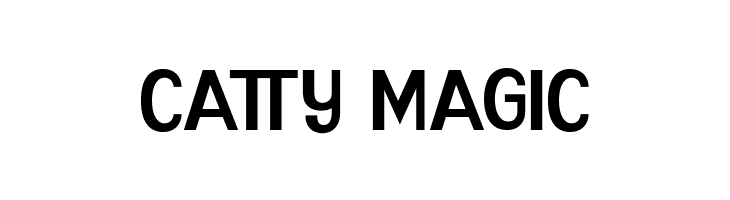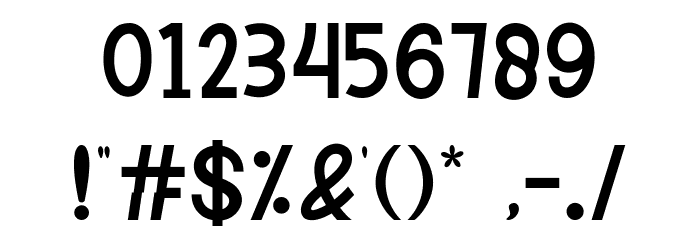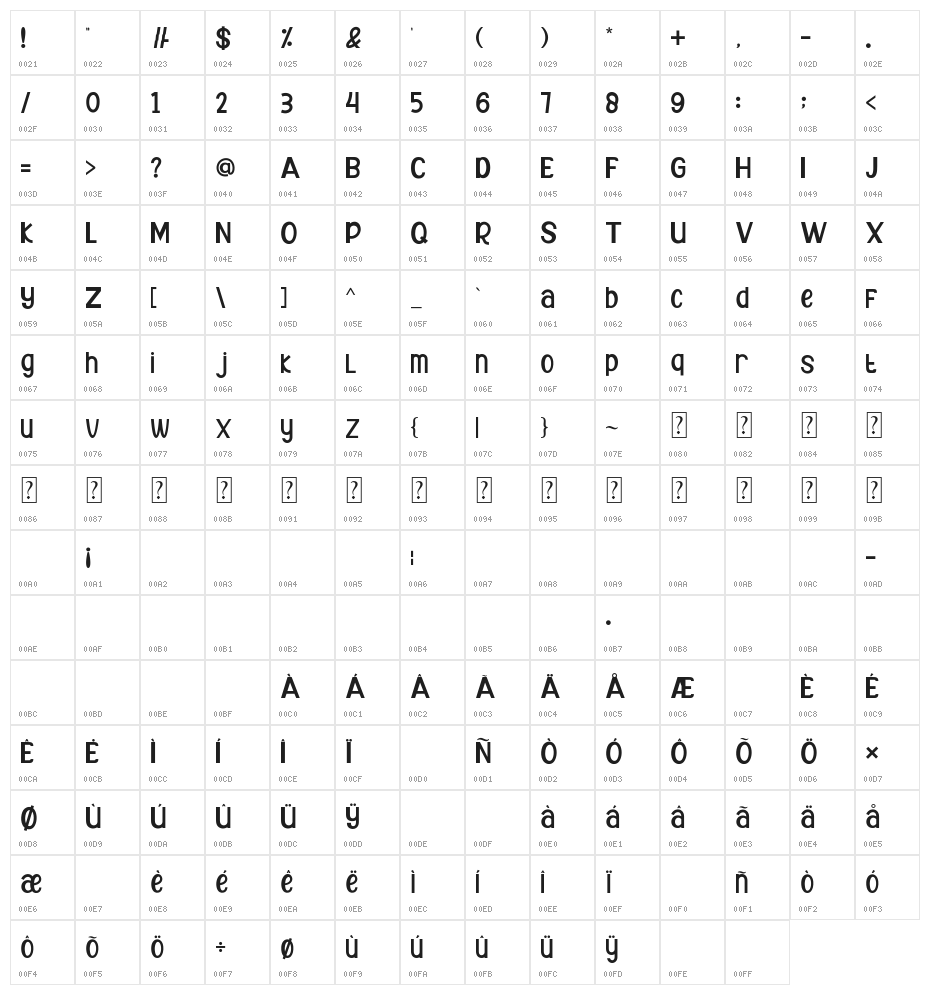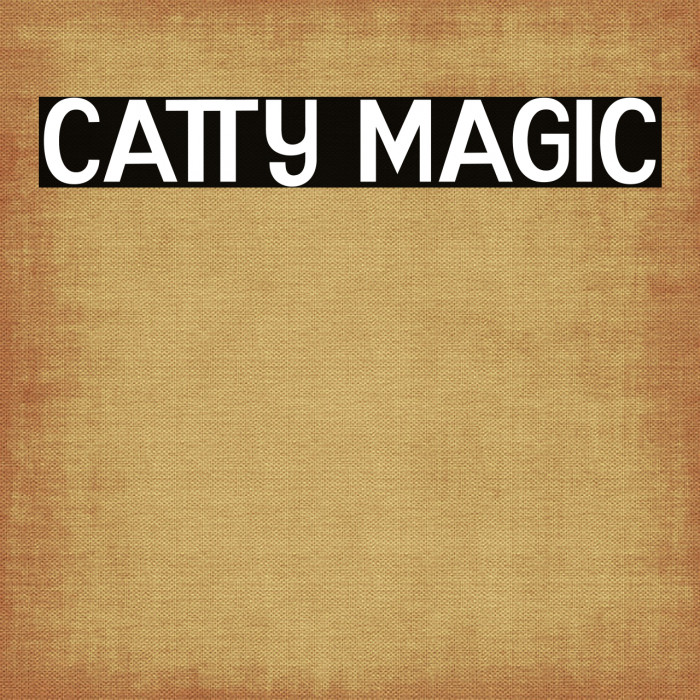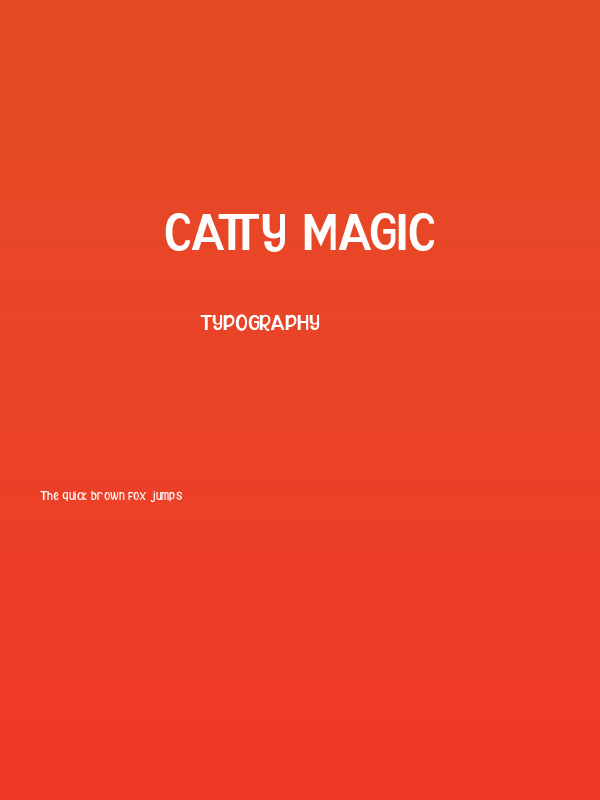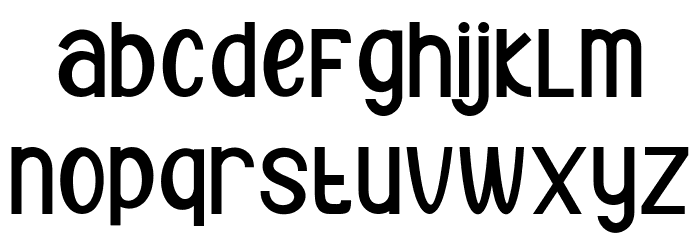
CATTY MAGIC Font
CATTY MAGIC Description
This font features a bold and modern sans-serif design with a strong geometric structure. The uppercase letters are uniform in height, providing a clean and consistent appearance. The lowercase letters maintain a similar geometric style, with rounded edges that add a touch of softness to the overall look. Numbers are clear and easy to read, making them suitable for various applications. The special characters are well-defined, ensuring versatility in design projects. The font's boldness and clarity make it ideal for impactful headlines and branding.
| Proposed Projects | Ideal for branding, advertising, headlines, and digital media where a strong, modern presence is desired. |